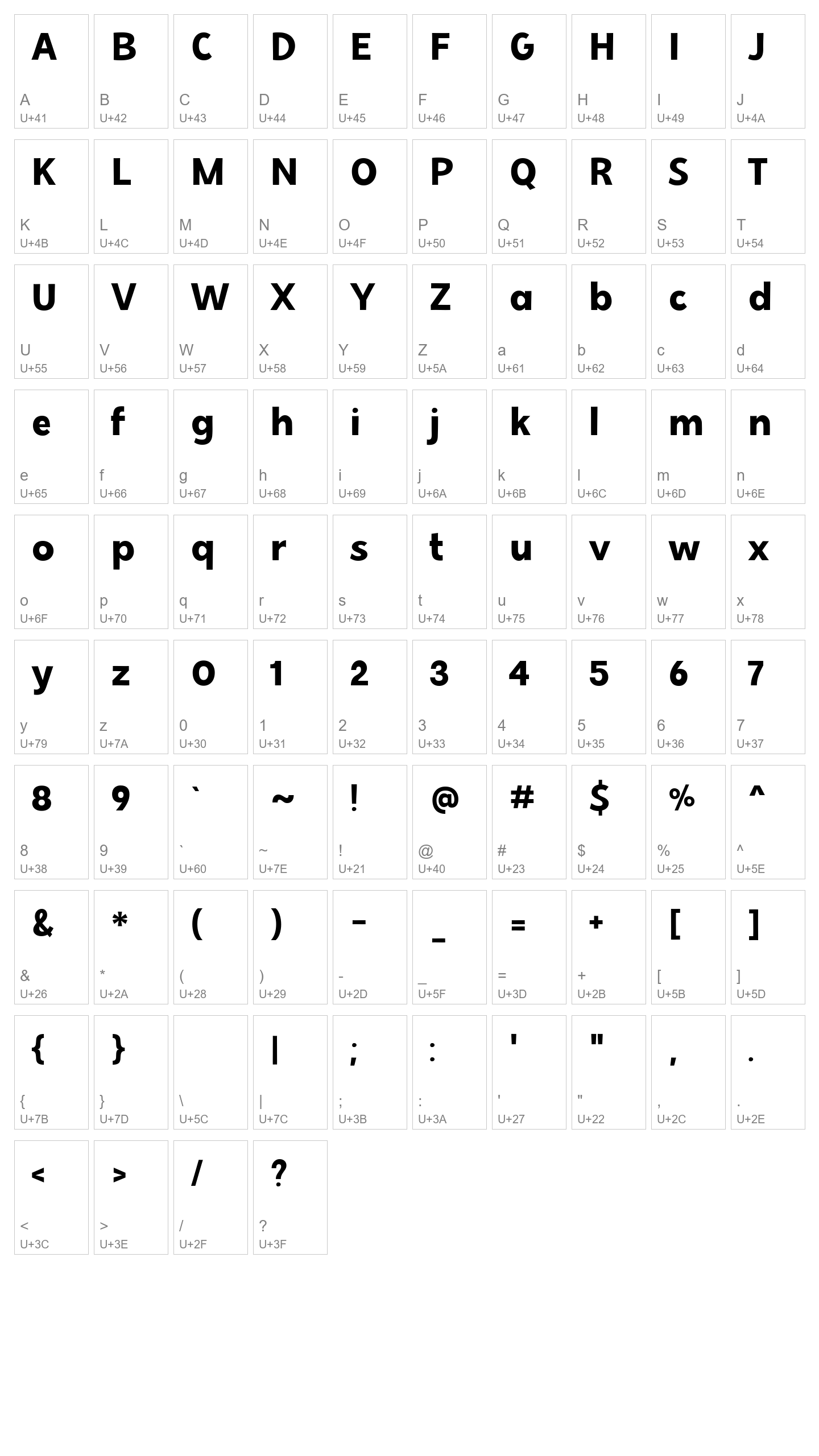
Chonky Cat
Introducing Chonky Cat a playful and charismatic bold sans serif typeface that is sure to make a statement in any design. This font exudes a sense of confidence and charm, with its thick and rounded letterforms giving it a friendly and approachable appearance.